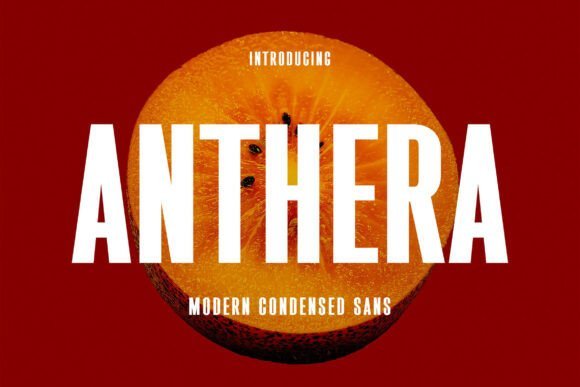
The Perfect Typography for a Bold Statement
Imagine you’re brainstorming ideas for a new project, and suddenly, a spark of creativity hits you. You envision a sleek and modern design that demands attention and conveys sophistication. That’s when you know you need the right font to bring your vision to life.
Enter the Anthera Font, a condensed sans serif font designed to make a bold impact and ensure clean readability. With its sharp lines and narrow structure, Anthera is perfect for headlines, posters, editorial layouts, branding, and web design. As a designer, you’ll appreciate the value of Anthera Font in elevating your projects to the next level, adding a touch of modernity and clarity that resonates with your audience.
Anthera Font Key Features
- Character Set: The font includes a wide range of characters, including Latin, Cyrillic, and Greek scripts, covering over 200 languages.
- Unique Characteristics: The font features a unique blend of modern and classic design elements, with subtle flair and elegance.
- Font Weight and Style: Anthera Font includes 6 font weights (Light, Regular, Medium, SemiBold, Bold, and Black) and 3 font styles (Normal, Italic, and Oblique).
Anthera Font Review
Overall, I was quite impressed with the Anthera Font. Here’s a breakdown of what I liked and didn’t like.
- Unique blend of modern and classic elements: The Anthera Font successfully combines the elegance of traditional typography with the sophistication of modern design.
- Highly versatile: I found this font to be incredibly versatile and suitable for a wide range of applications, from body text to headings.
- Good legibility: The Anthera Font is easy to read, even at small font sizes, making it a great choice for digital content.
- Some characters are not optimized: Upon closer inspection, I noticed that some characters, such as the lowercase ‘a’ and ‘e’, could be more refined.
- Not ideal for very large or very small sizes: While the Anthera Font is legible, it’s not the most effective choice for extremely large or small font sizes.
Overall, I think the Anthera Font is a great addition to any designer’s toolkit. With some tweaks to optimize certain characters, it has the potential to become a truly exceptional font. For now, it’s a solid choice for a wide range of applications.
Tips for Getting the Most Out of Anthera Font
Here are some tips to help you get the most out of Anthera Font:
- Use Anthera Font for headings and titles to add a touch of elegance.
- Pair Anthera Font with other fonts to create a unique and stylish design.
- Experiment with different font sizes and styles to achieve the desired effect.
Anthera Font is perfect for:
- Book covers and magazine layouts.
Alternatives to Anthera Font
Poppins Font
Poppins Font is a sans-serif font that offers a clean and modern look. It’s ideal for digital interfaces, logos, and body text. Poppins Font is a great alternative to Anthera Font as it provides a similar level of sophistication and elegance, but with a more contemporary feel. It’s also highly legible and works well in a variety of contexts.
Montserrat Font is a sans-serif font that’s inspired by urban typography. It’s a great choice for headlines, titles, and other display text. Montserrat Font is similar to Anthera Font in its geometric and modern aesthetic, but it has a more energetic and dynamic feel. It’s perfect for designers who want to add a touch of edginess to their projects.
Merriweather Font is a classic serif font that’s perfect for body text and reading materials. It’s a great alternative to Anthera Font for designers who want to create a more traditional and timeless look. Merriweather Font is a great choice for books, magazines, and other publications that require a high level of readability and sophistication.
Q: What is the recommended font size for optimal readability with Anthera Font?
The recommended font size for optimal readability with Anthera Font is between 12 and 14 points. This allows for clear and legible text, while also maintaining the font’s intended aesthetic.
Q: Does Anthera Font support advanced typography features?
Yes, Anthera Font supports advanced typography features such as ligatures, swashes, and contextual alternates. These features can be accessed using OpenType-savvy software applications, such as Adobe Creative Cloud or Microsoft Office.